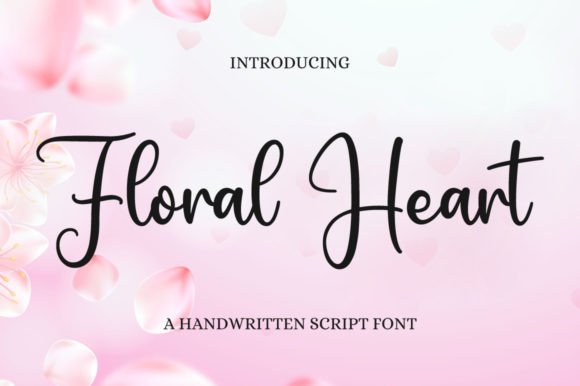
Embark on a journey of elegance and creativity with Floral Heart Font, a captivating script font that exudes charm and sophistication. This exquisite font, crafted by the talented Nirmala Creative, is a true masterpiece, designed to elevate your designs to new heights. Immerse yourself in the world of calligraphy, where each letter dances with grace and fluidity, creating a visual symphony that captivates the senses.
Floral Heart Font is the perfect companion for crafting eye-catching logos that leave a lasting impression. Its intricate swirls and delicate flourishes add a touch of whimsy and romance, making it ideal for businesses seeking to convey a sense of warmth and allure. Whether you're designing for fashion brands, wedding invitations, or personalized gifts, Floral Heart Font will elevate your creations with its timeless beauty.
Unleash your creativity and explore the endless possibilities of branding with Floral Heart Font. Its versatility knows no bounds, allowing you to create stunning designs that reflect your unique style and vision. From elegant business cards to captivating social media posts, Floral Heart Font adds a touch of sophistication that sets you apart.
Express yourself with eloquence and finesse through Floral Heart Font's enchanting quotes. Its flowing lines and graceful curves lend themselves perfectly to creating visually stunning quotes that resonate with your audience. Inspire, uplift, and engage your readers with words that dance off the page, leaving an indelible mark on their hearts and minds.
With Floral Heart Font, the possibilities are limitless. Dive into the world of design and let your imagination soar. Whether you're a seasoned designer or just starting, this font will become your trusted companion, helping you create designs that captivate and enchant. Experience the joy of creativity and elevate your designs to new heights with Floral Heart Font. Embrace the beauty of calligraphy and let your creations bloom with elegance and charm.